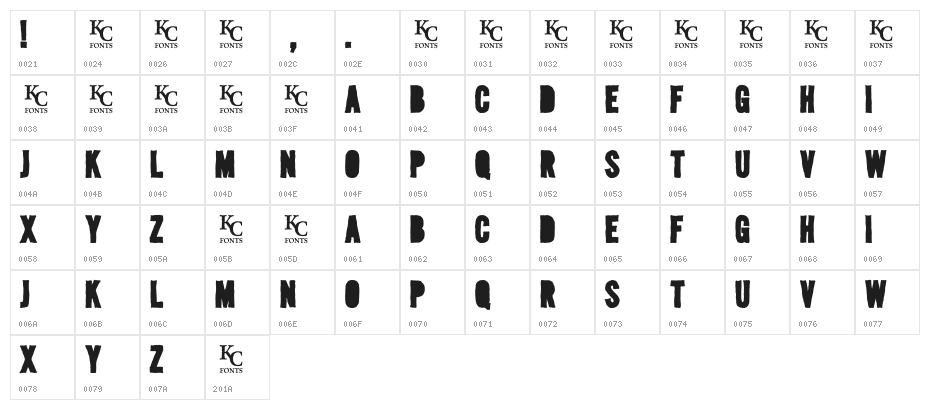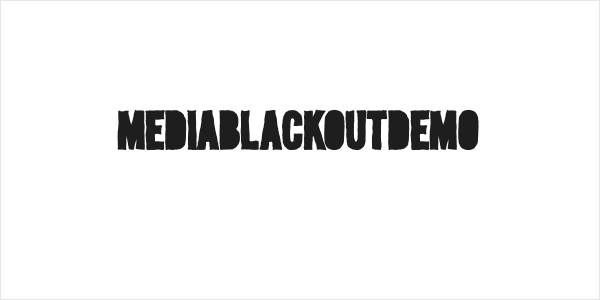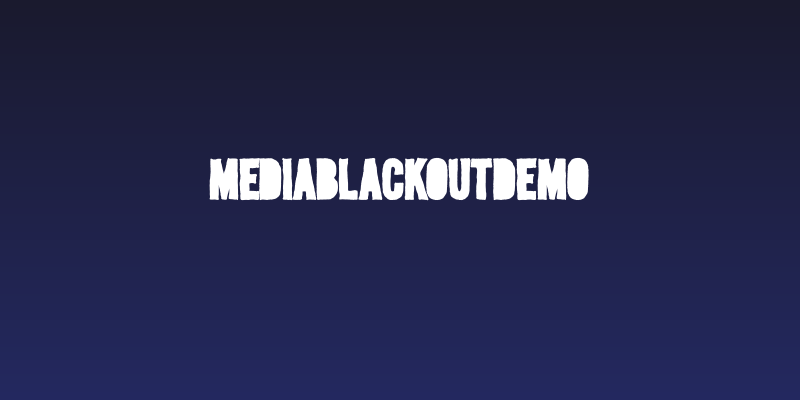
MediaBlackoutDemo Font
MediaBlackoutDemo Description
This font features a bold and rugged style with a distressed appearance, giving it a raw and edgy feel. The characters are thick and heavy, with uneven edges that create a sense of movement and energy. The uppercase and lowercase letters maintain a consistent weight, contributing to a cohesive look. The font's design is reminiscent of vintage posters or hand-painted signs, making it ideal for projects that require a strong visual impact. Its unique texture adds depth and character, making it stand out in any design.
| Proposed Projects | Ideal for posters, album covers, branding, and any project needing a bold, impactful statement. |